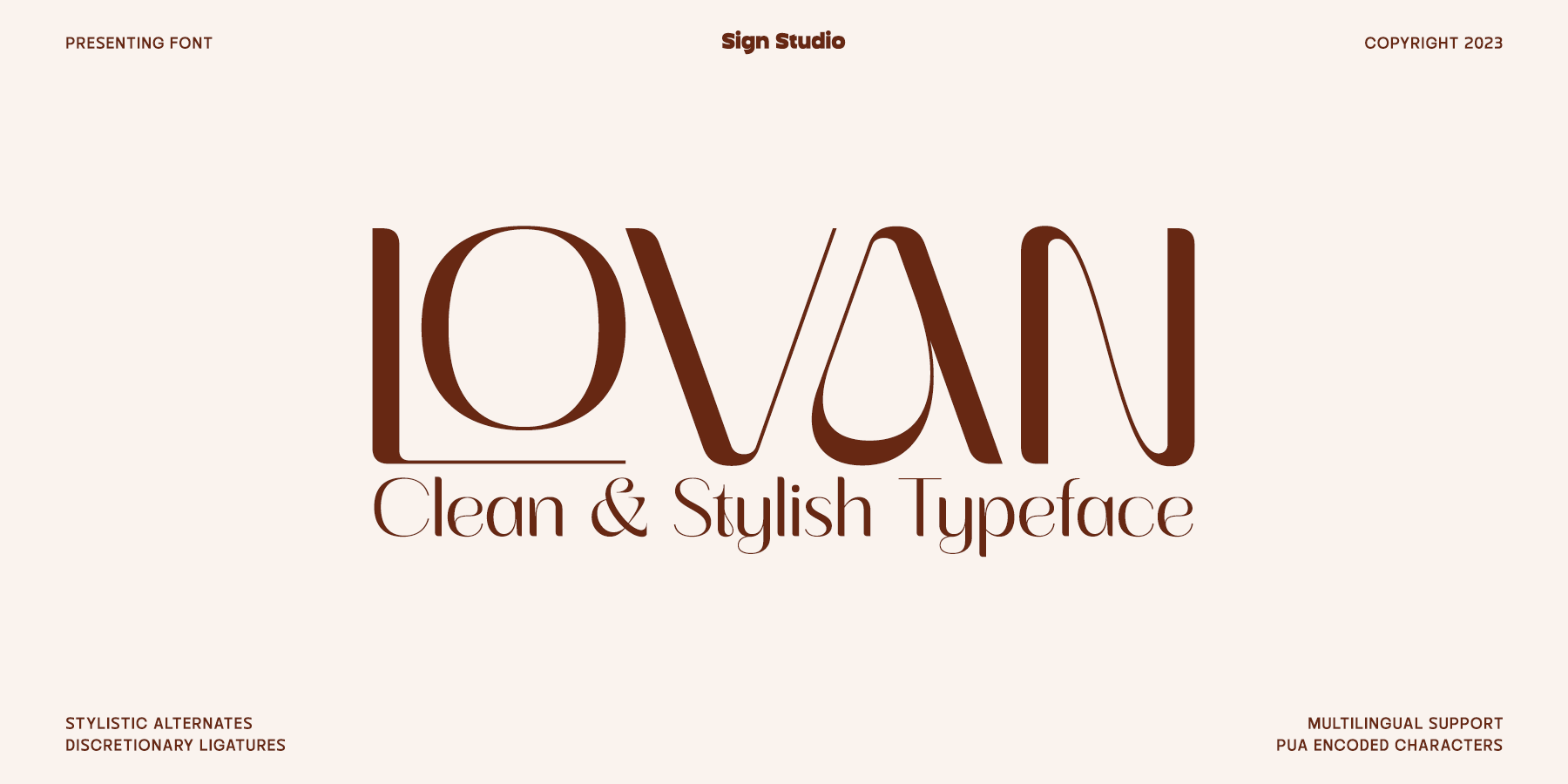
Lovan Font is ideal for romantic wedding invitations, love letter stationery, intimate café branding, couples therapy centers, anniversary celebration materials, romantic retreat marketing, heartfelt greeting cards, valentine's day campaigns, relationship coaching websites, and any tender project that celebrates the profound beauty of love and the intimate connections that bind hearts together across time and distance.
What makes Lovan Font exciting is its gentle intimacy that captures the tender whispers of true love and the quiet strength found in deep emotional connection. This typeface embodies the essence of romantic devotion with flowing letterforms that seem to carry the rhythm of two hearts beating in perfect synchrony. The font's loving character makes it perfect for brands and projects that want to communicate affection, commitment, and the transformative power of love that creates unbreakable bonds between souls.
The Lovan Font family includes multiple weights and romantic variations, featuring light, regular, and bold versions along with decorative swashes and alternate characters inspired by love letters and romantic calligraphy. This comprehensive collection allows designers to create emotionally resonant typography that maintains the font's signature tender character while providing flexibility for various romantic and relationship-focused design applications.
When exploring authentic romantic typography, Lovan Font Free Download represents an exceptional opportunity to work with a typeface that genuinely captures the spirit of true love and emotional intimacy. This font demonstrates innovative design thinking by incorporating the natural flow and gentle curves that define both handwritten love letters and the organic beauty of romantic expression through written word.
Professional designers appreciate Lovan Font for its ability to instantly create emotional connections and establish trust with audiences seeking authentic romantic experiences and meaningful relationships. The font's intimate character makes it particularly effective for wedding planners, relationship counselors, and romantic hospitality brands seeking to communicate genuine care and emotional understanding.
The timeless appeal of Lovan Font lies in its perfect representation of eternal love and emotional intimacy that continues to resonate across generations and cultures. This typeface serves as a celebration of love's enduring power and the universal human need for deep emotional connection and romantic partnership.
For creative professionals working with romantic and relationship-focused brands, Lovan Font represents the ultimate typography solution that brings authentic emotional depth and romantic tenderness to any application, ensuring designs reflect the gentle strength and profound beauty that define true love and lasting romantic commitment.